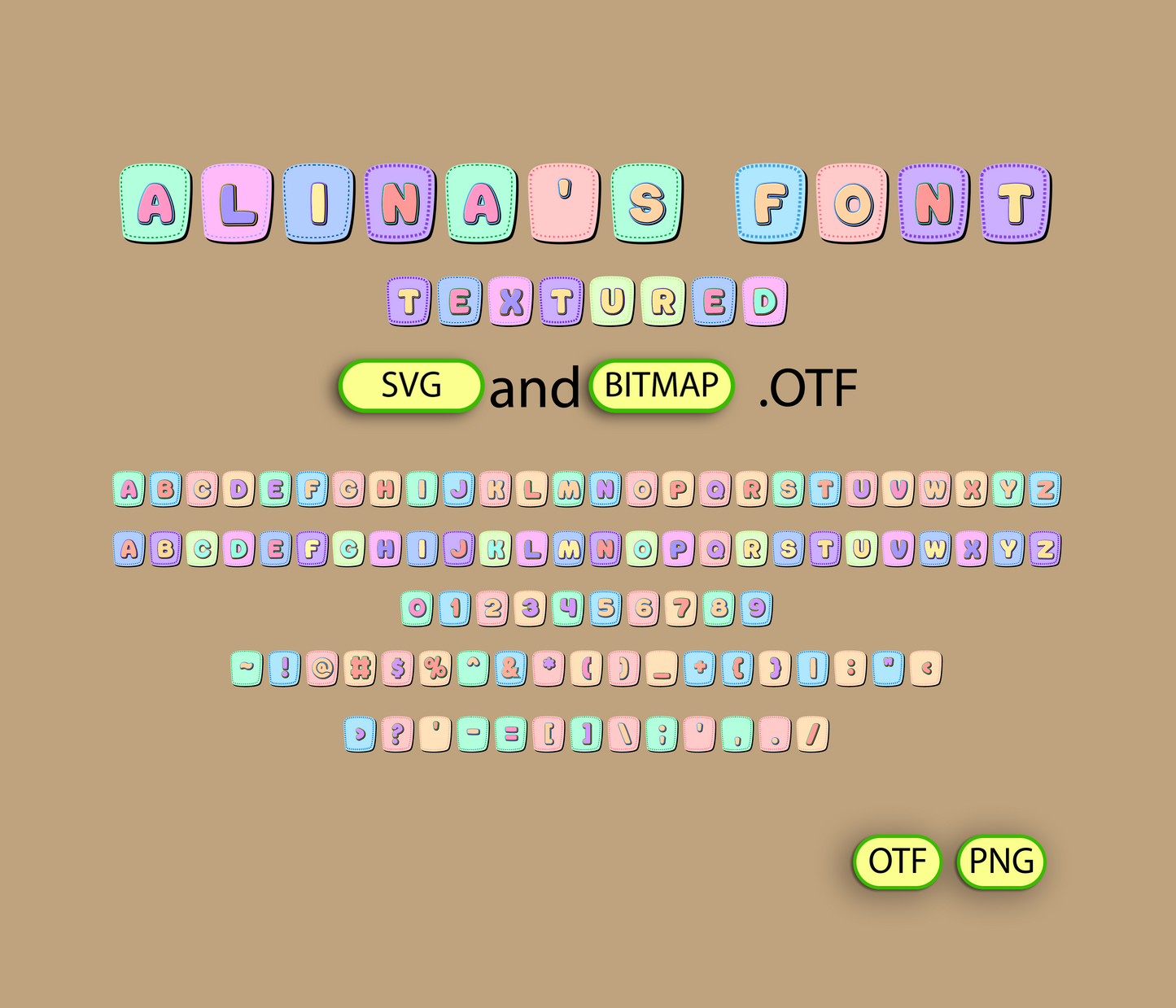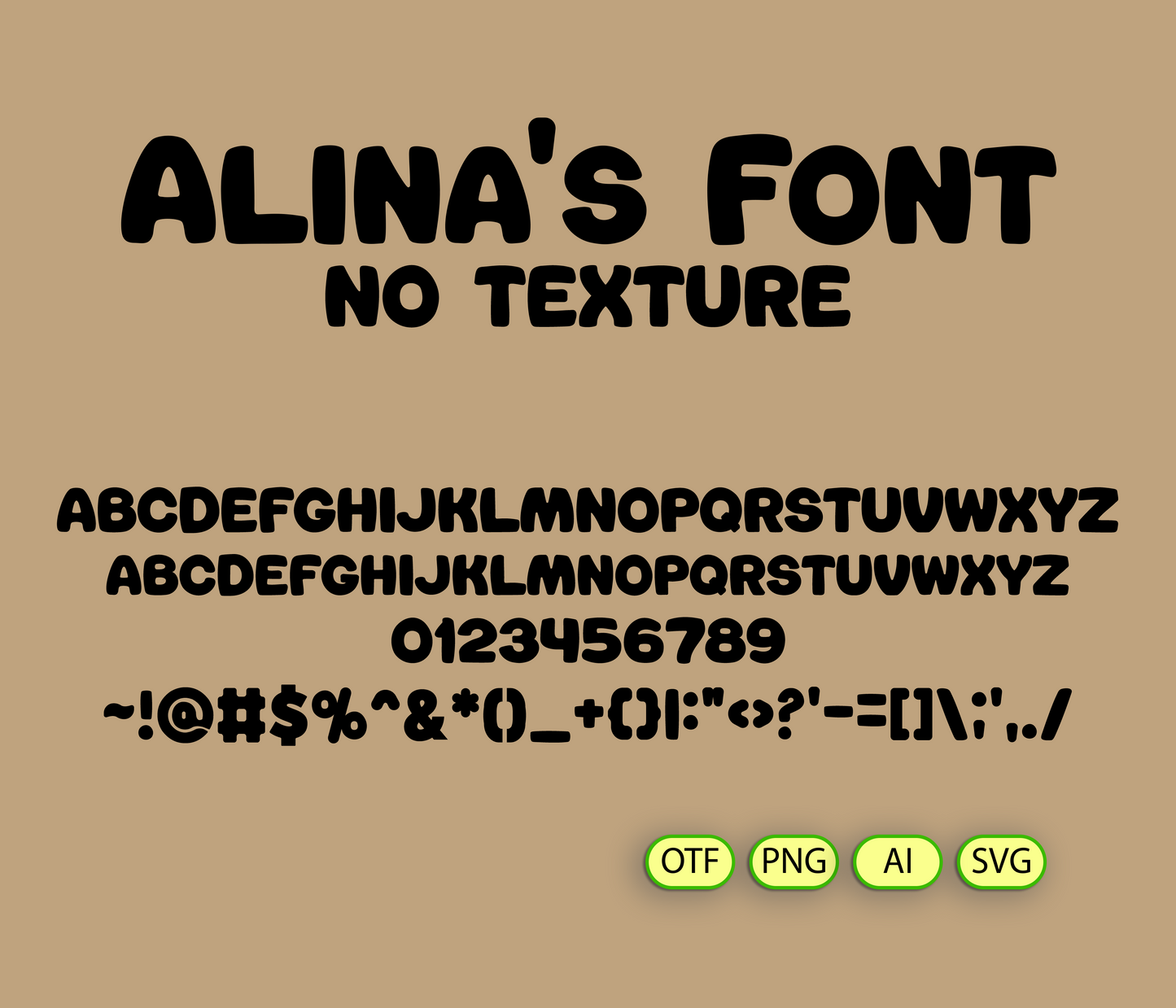
Vintage Revival Font Textured
Step into the nostalgic world of bygone eras with our Vintage Revival font, capturing the essence of classic design and timeless appeal. Perfect for throwback events, retro-inspired brands, period content creators, and creative professionals, this font brings the authentic, evocative spirit of yesteryear to your projects. Create distinctive invitations, nostalgic merchandise, or digital content with the warm, characteristic energy of classic typography and mid-century aesthetics.
Our Vintage Revival font features bold, character-rich forms and period-inspired letterforms reflecting the unmistakable charm of classic design movements. Ideal for:
- Throwback Events: Create attention-grabbing invites, posters, and banners for decade parties, historical celebrations, and vintage-themed gatherings
- Brand Design: Perfect for logos, packaging, and identity systems that evoke nostalgia and established credibility
- Digital Media: Enhance websites, blogs, and social media with distinctive headers and graphics that express timeless character
- Period Content: Add authentic vintage flair to historical projects, retro advertisements, and era-specific creative work
- Personal Projects: Bring nostalgic charm to scrapbooking, DIY crafts, and home decor inspired by the aesthetic sensibilities of classic eras
Our font pays tribute to the enduring appeal of classic design eras, empowering your designs with its nostalgic and characterful spirit. Whether crafting promotional materials, designing retro merchandise, or adding a vintage touch to personal projects, this font communicates the timeless allure of bygone aesthetics. Ready to inject classic charm into your creations? This font is your key to nostalgic, impactful design.